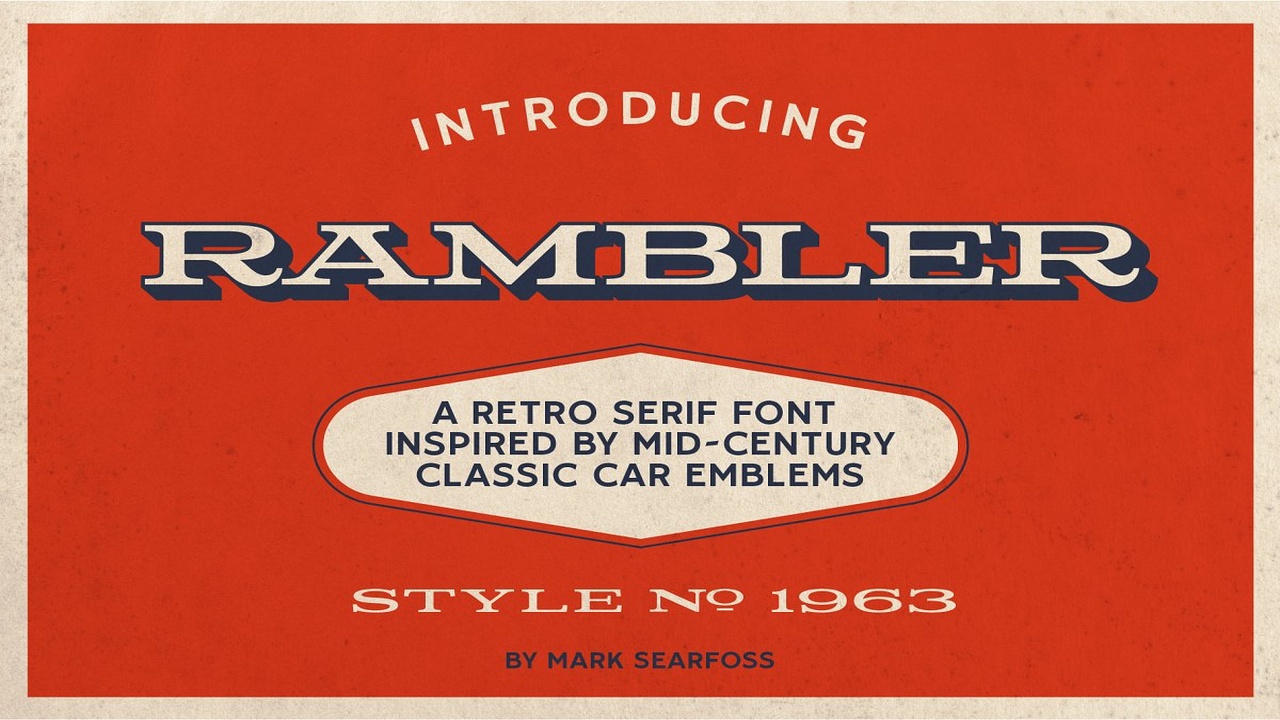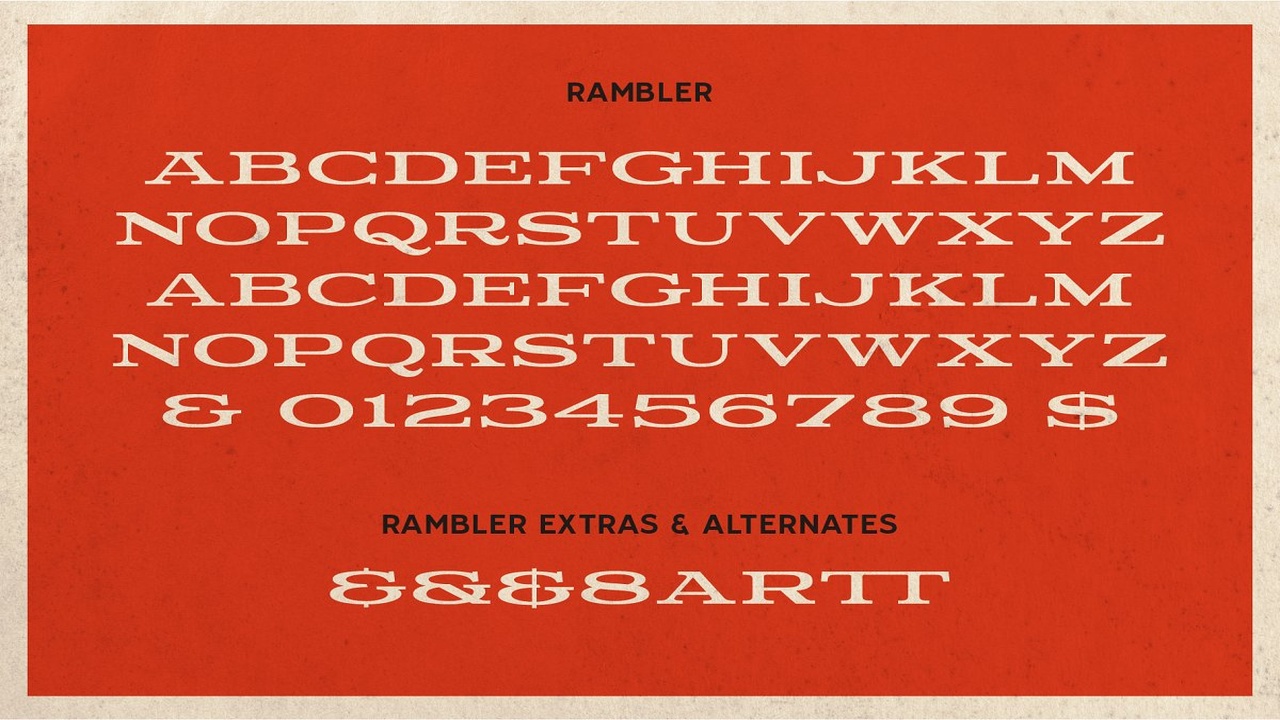
About the Rambler Font
Rambler is retro font based on classic car emblems of the 1960s, This extended style features short letters with wide serifs for a uniquely mid century vibe, Whether your design is large or small, Rambler will give your work a big hit of style, – Great for logos, labels and packaging– OTF file format– Basic English characters, accents and punctuation